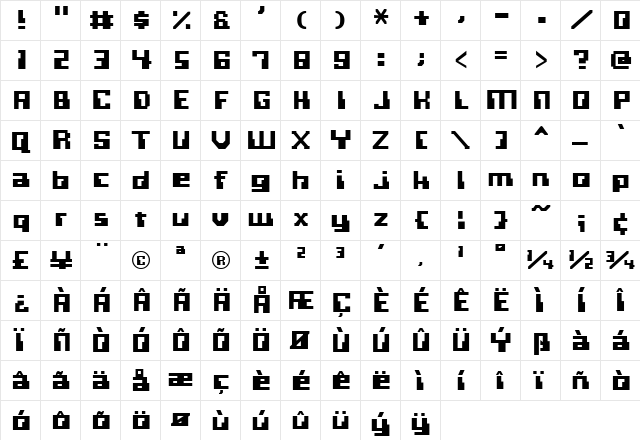
Computer Normal
Design Context for Computer Typeface
Computer takes a measured approach to typography — its balanced proportions and neutral character make it a reliable workhorse for both digital and print work.